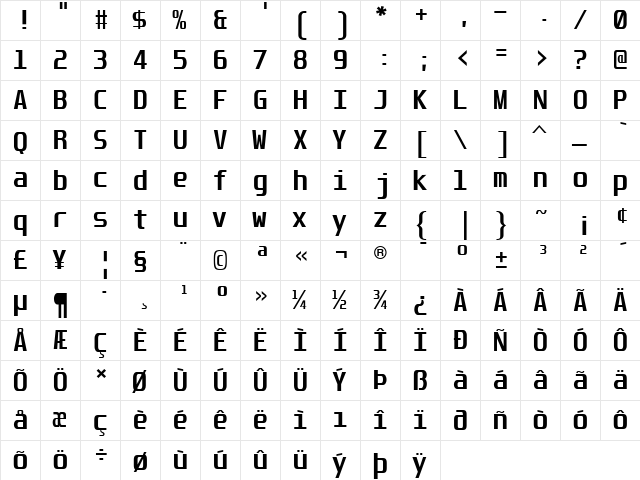
Unispace Bold
Design Context for Unispace Typeface
Unispace offers clean, dependable letterforms without strong stylistic allegiance, making it a practical choice for designers who need flexibility. The heavy weight commands attention and anchors typographic hierarchies.